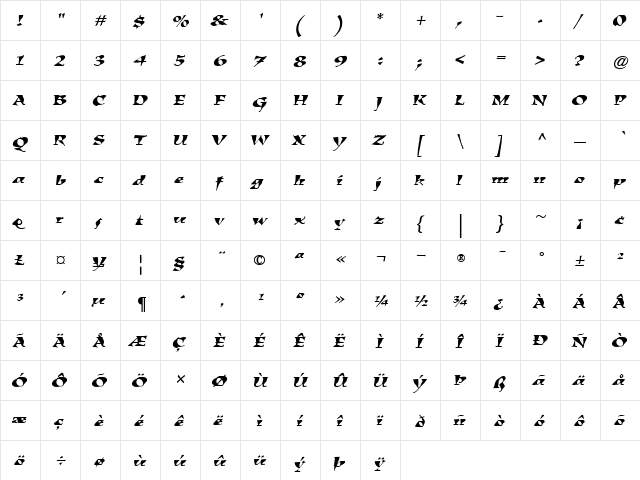
KigaliSx RomanItalic
Design Context for KigaliSx Typeface
KigaliSx is a composed and adaptable typeface that performs quietly and consistently across a wide range of design contexts. The dynamic lean of this cut emphasises speed and emphasis in any layout.
Pro Tip: Use KigaliSx for emphasis, pull quotes, and subheadings where its slanted energy can add rhythm to the layout.